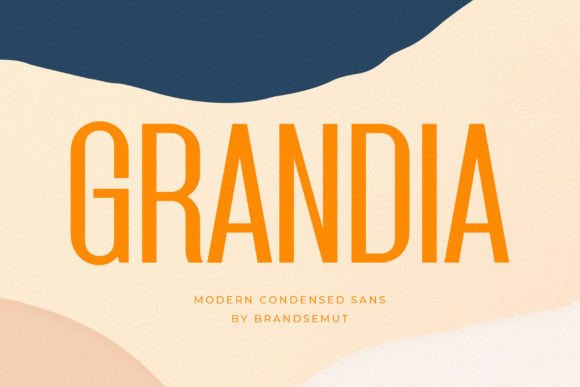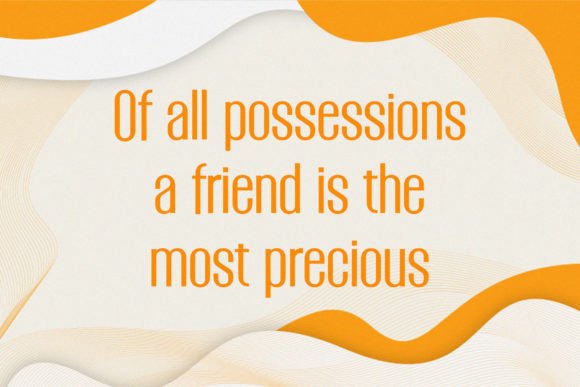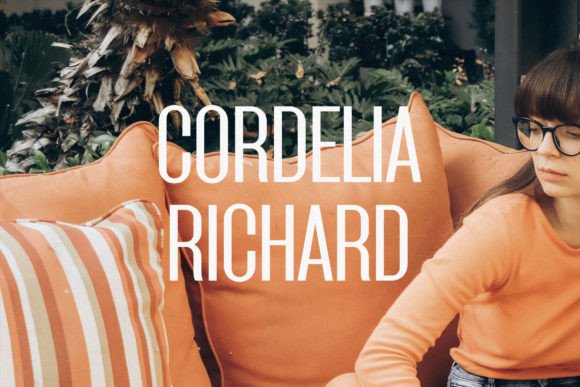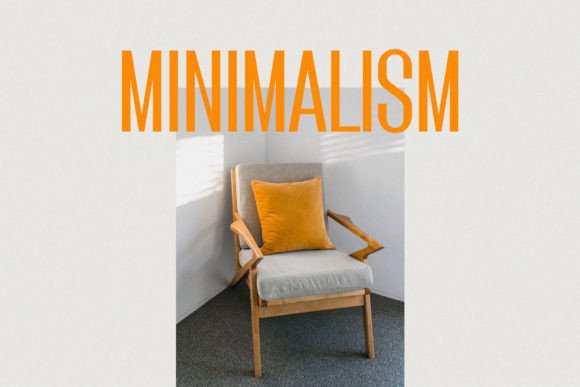
Grandia Font: Modern Display Font for Logos & Branding
About the Grandia Font
The Grandia Font is here to transform your projects with its distinctive character and style. Grandia is a modern and simple font, best used as a display for headings, logos, branding, magazines, product packaging, and invitations. Grandia comes with clean lines and smooth curves giving any project an extra touch of class.
Grandia’s elegant, yet modern, personality makes it ideal for projects requiring a sophisticated and clean aesthetic. It excels in branding applications, particularly for luxury goods or high-end services, where its refined curves convey quality and trustworthiness. Posters and short, impactful headlines also benefit from its strong presence. Avoid using Grandia for lengthy body text or UI elements; its display nature makes it less suitable for readability in smaller sizes or continuous paragraphs.
Pairing Grandia effectively requires considering its inherent elegance. A clean sans-serif like Lato or Open Sans provides a solid contrast for body copy, balancing Grandia’s curves with a straightforward, legible typeface. For a more playful yet sophisticated feel, a script font with gentle flourishes could complement it in secondary text elements such as taglines or short descriptive phrases. Avoid overly ornate or heavy fonts that compete with Grandia’s refined simplicity.
Grandia’s overall mood is best described as sophisticated and modern, lending itself to brands aiming for a refined and upscale image.
Grandia Font Usage Examples
Grandia Font Example